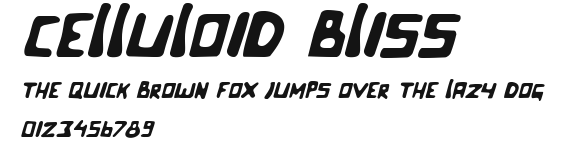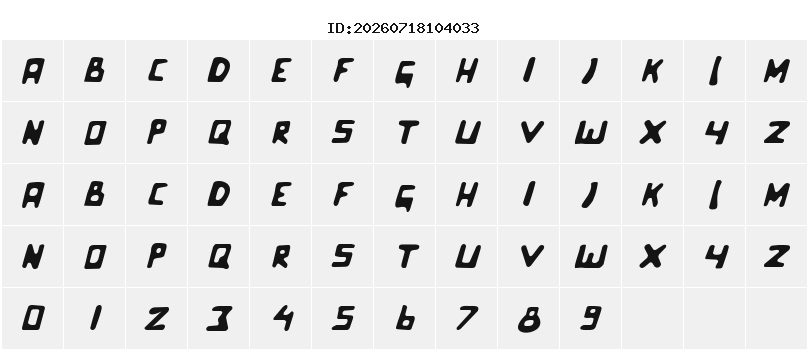
Celluloid Bliss Preview
• Font Name: Celluloid Bliss
• Full Font Name: Celluloid Bliss Italic
• Designer: David Kerkhoff
About Celluloid Bliss.ttf
Celluloid Bliss.ttf is a modern, elegant sans-serif font designed for ultimate readability and visual harmony. Perfect for branding, headlines, web design, and print materials.